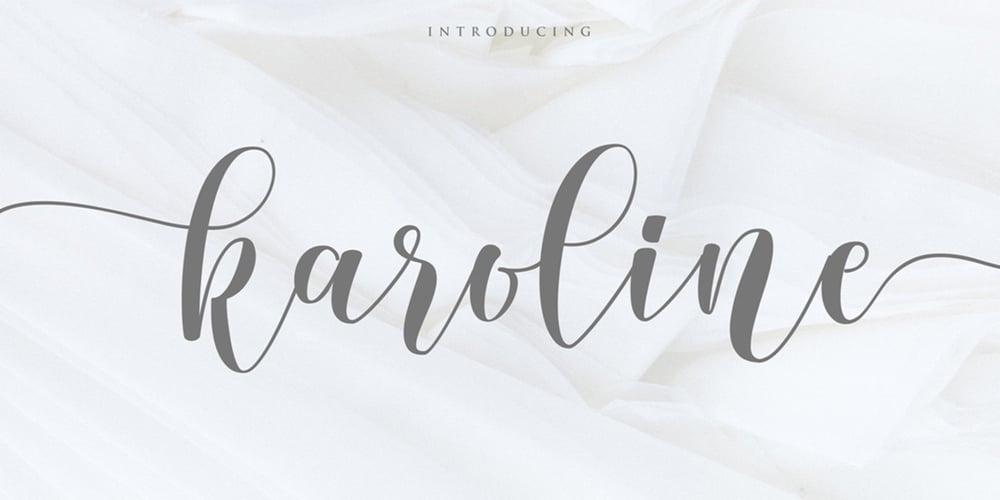
Karoline Font Family was designed by Gumilar Pratama Adiatna and published by Gilar Studio. Karoline contains 1 styles and family package options. Karoline is a lovely script font with beginning and ending swashes, 31 ligatures that add more beautiful and aesthetic fonts to perfect your extraordinary project.Karoline is a lovely script with handwritten, sophisticated flows. It is perfect for branding, wedding invites, and other romantic projects.”Karoline” includes a full set of uppercase and lowercase letters, multilingual symbols, Alternate,numerals, punctuation and ligatures. Also it includes: -short lowercase beginning and ending swashes which serve to connect two words or letters (This is so perfect for invitations, monograms)All of features and special characters of this font are included in one file. So it is easy to accessed by using program or software that support the opentype like Adobe Illustrator, Adobe Photosop, and Adobe Indesign). This font also very easy to use because compatible for all software even for non-opentype supported.so it would be perfect for all types of printing techniques+you can do embroidery, laser-cut, gold foil, etc.You can mix and match with Opentype feature:Ekstras 31 ligatureMore than 540 of glyphsAlternatesStylistic sets from ss01 to ss04If you don’t have a program that supports OpenType features such as Adobe Illustrator and CorelDraw X Versions, you can access all the alternate glyphs using Font Book (Mac) or Character Map (Windows).To Access Alternate Characters Click The Link Below:Adobe illustrator CS https://www.youtube.com/watch?v=geL0Ye02RykAdobe illustrator CC https://www.youtube.com/watch?v=V25yiUh8BcEMs Word https://www.youtube.com/watch?v=HxkhZiCuwEwCoreldraw X7 https://www.youtube.com/watch?v=UBVsufJjonsAdobe Photoshop CC https://www.youtube.com/watch?v=BYKXl58AdNYIndesign CS https://www.youtube.com/watch?v=HgZTCxKG14QCheck my other Font here : https://gilarstudio.com/Thanks and happy designing 🙂